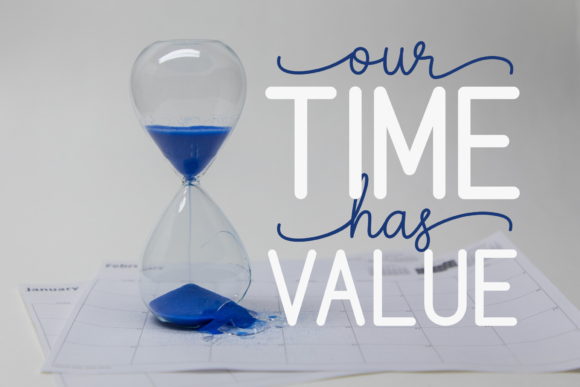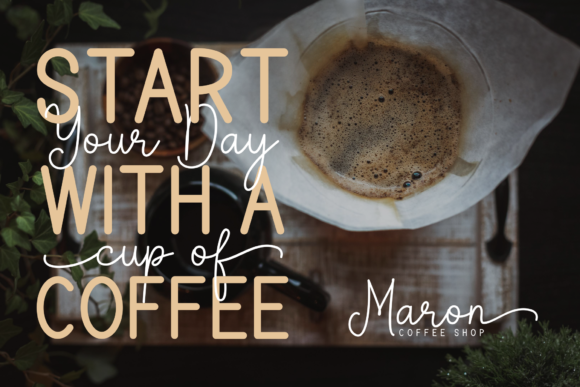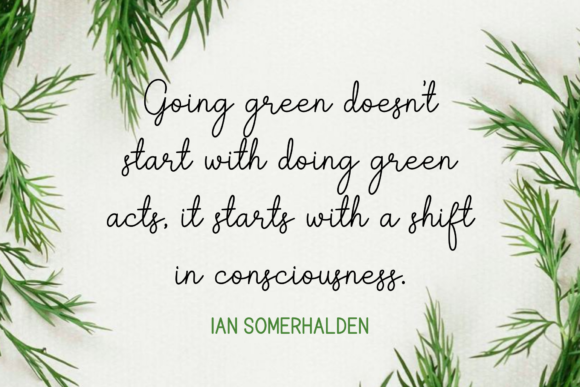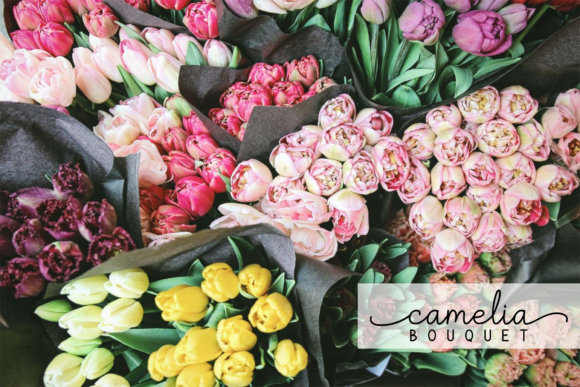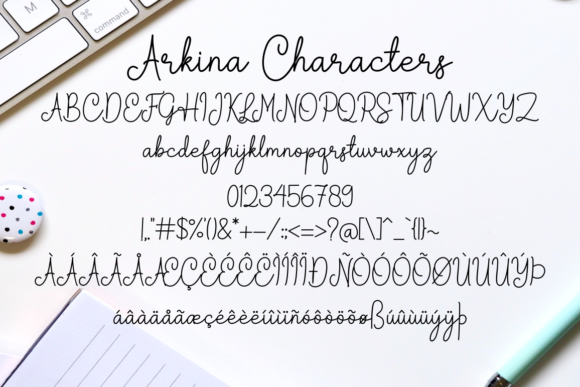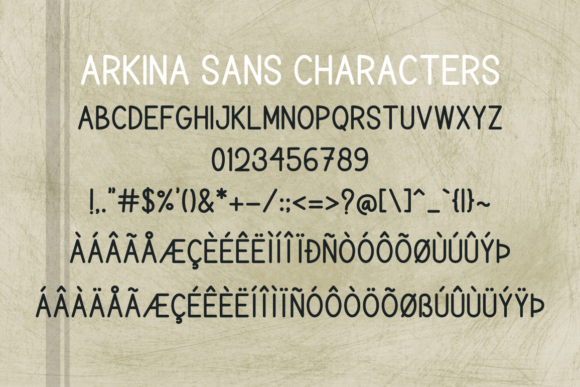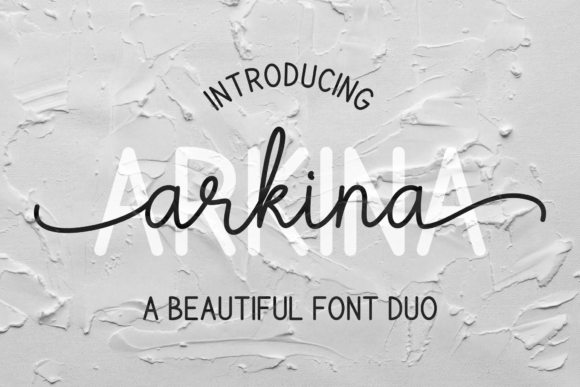
The Ultimate Font Duo for Creative Projects: Arkina
Have you ever been in the middle of a design project, and suddenly, you’re stuck on finding the perfect font? I recall a recent experience where I was working on a client’s wedding invitation, and I just couldn’t find a font that screamed elegance and sophistication. That’s when I stumbled upon the Arkina font duo, and let me tell you, it was love at first sight! 💕
What Makes Arkina Special?
The Arkina font duo consists of a beautiful script font and a sans serif font that can be paired perfectly. Its striking and elegant style makes it perfect for creating unique designs. Whether you’re a designer, crafter, or creative hobbyist, this font duo is sure to elevate your projects.
So, what do I love about Arkina? Here are a few things:
• ✨ Elegant and sophisticated design
• ✅ Perfect pairing of script and sans serif fonts
• 💻 Highly versatile for various design projects
• 📚 Extensive character set, including OpenType features and glyphs
Now, are there any quirks? 🤔 Yes, a few:
• ⚠️ Some users might find the script font a bit challenging to read in smaller sizes
• ⚠️ Limited availability of language support
The Designer Inspiration Behind Arkina
The story behind Arkina’s creation is one of passion and dedication. The designer aimed to create a font duo that would inspire creativity and elegance in design projects. With a keen eye for detail and a love for typography, the designer carefully crafted each letterform to ensure a seamless pairing of script and sans serif fonts.
Is Arkina suitable for body text? While Arkina is primarily designed for headings and titles, it can be used for body text in larger sizes.
In conclusion, the Arkina font duo is an excellent addition to any designer’s font library. Its elegant and sophisticated style makes it perfect for a wide range of projects, from wedding invitations to branding and advertising materials. With its versatility, extensive character set, and OpenType features, Arkina is sure to inspire creativity and take your designs to the next level! 🚀